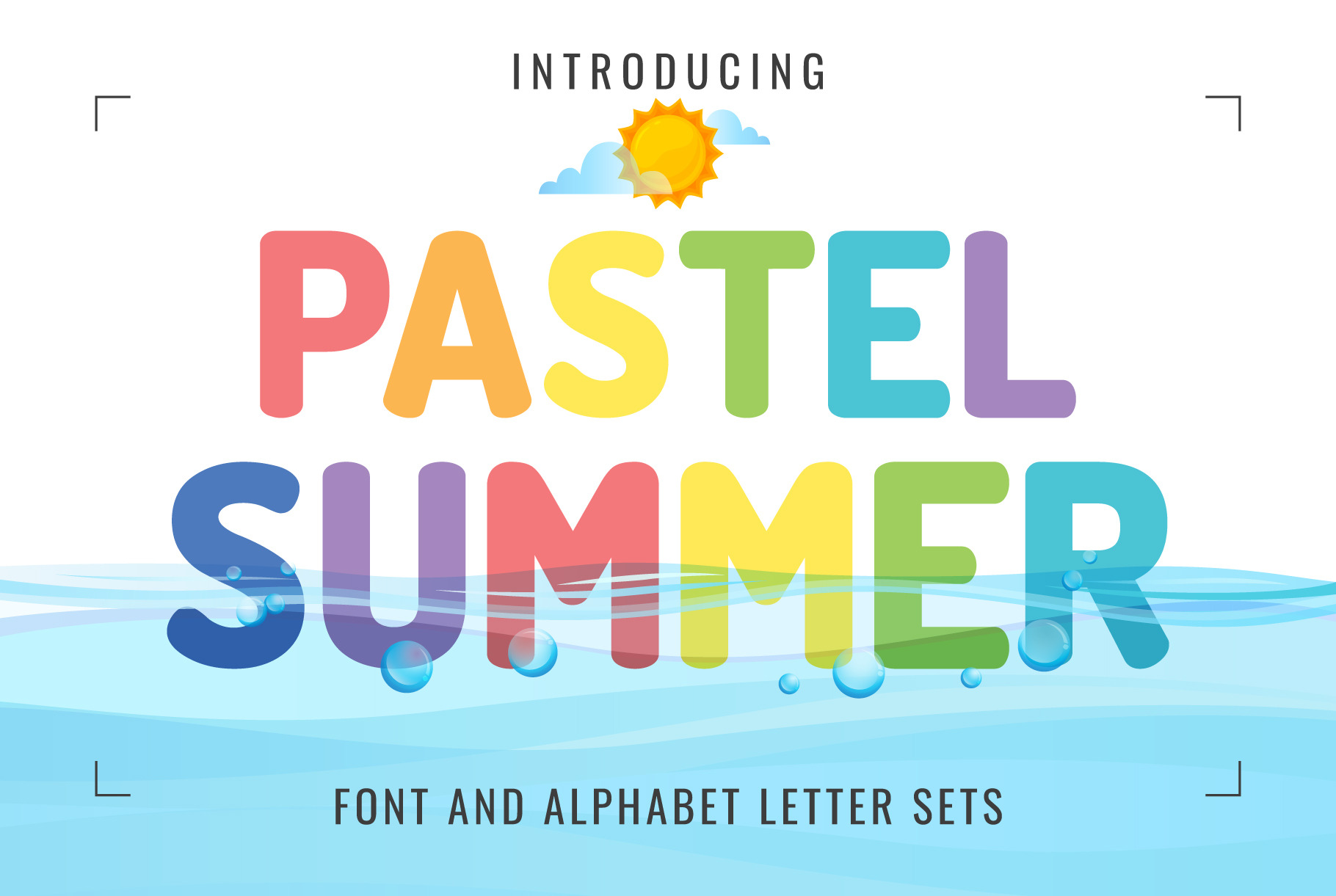
Pastel Summer Font
Pastel Summer Font family and extras (PNG & SVG Letters Files).
Introducing “Pastel Summer Font” – This charming font was created with inspiration ideas from beautiful rainbow colors. large selection of 8 ready-made font styles for your design freedom. The originality of the font will fit well into the fashionable logo, headline in the magazine or on the website, emphasize the trend of the product in branding and complement web advertising on social media.
FEATURE:
- This entire font is capitalized.
- Letters: A B C D E F G H I J K L M N O P Q R S T U V W X Y Z.
- Numbers: 0 1 2 3 4 5 6 7 8 9.
- Excluding punctuation.